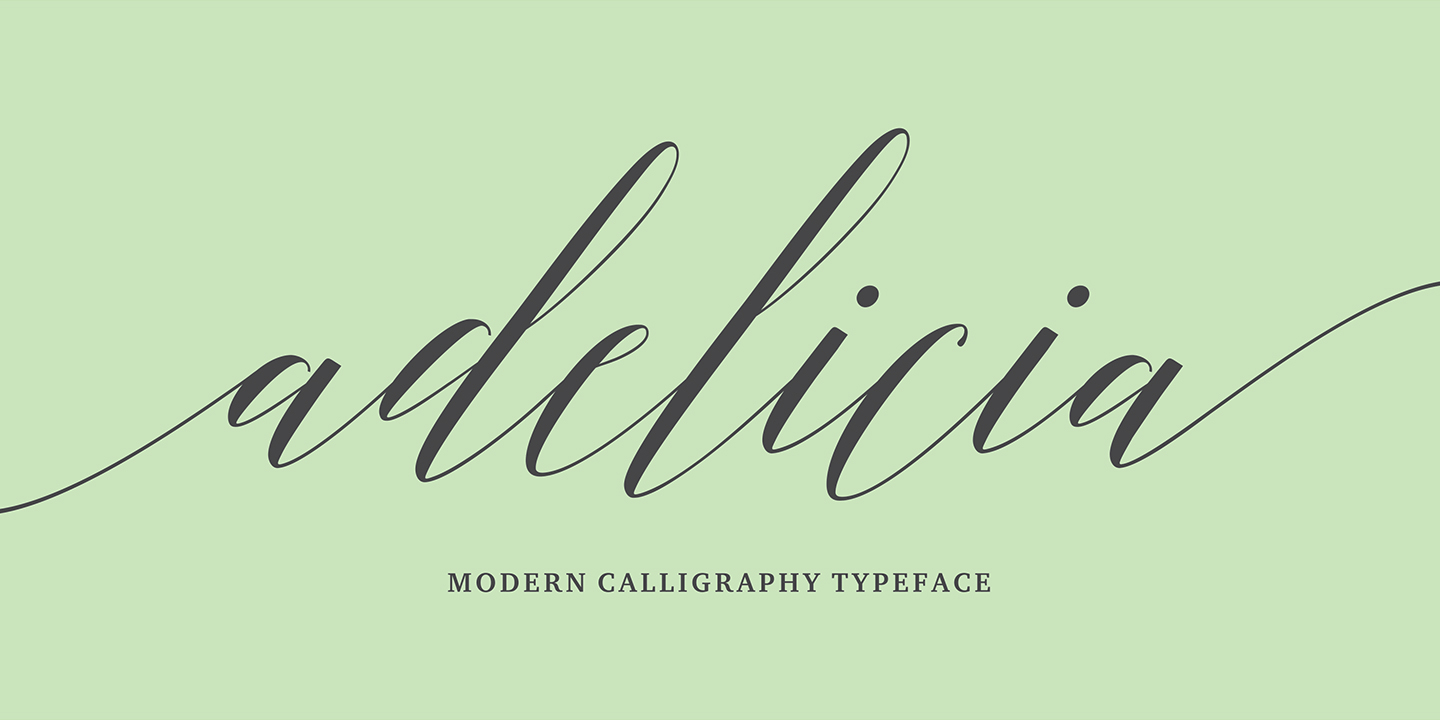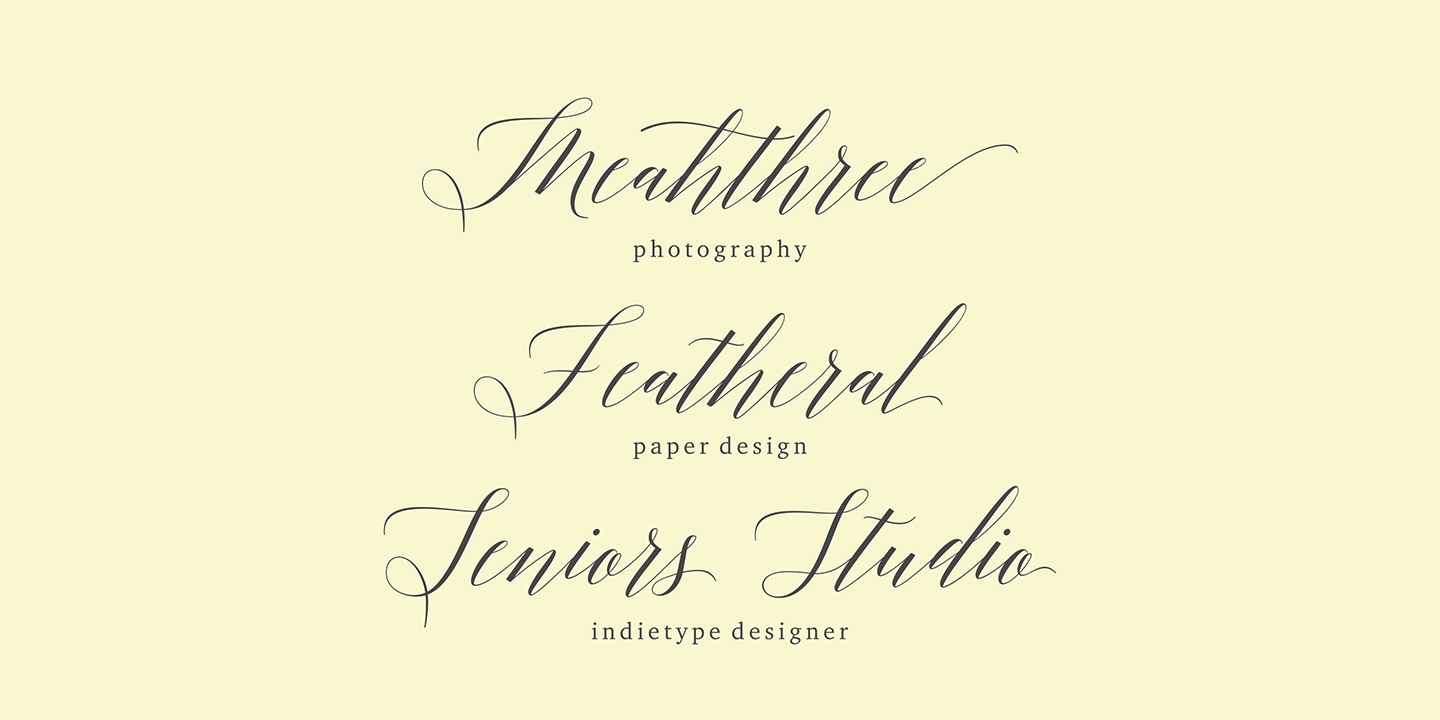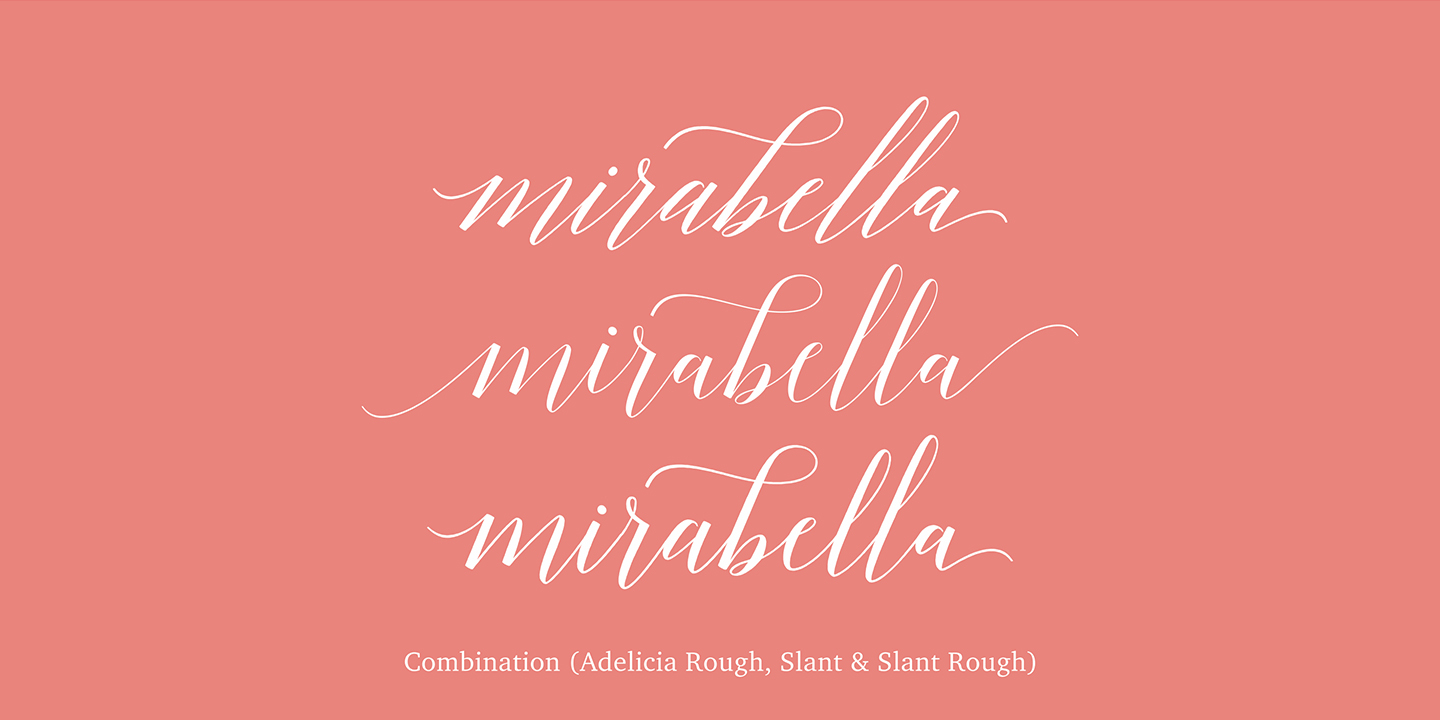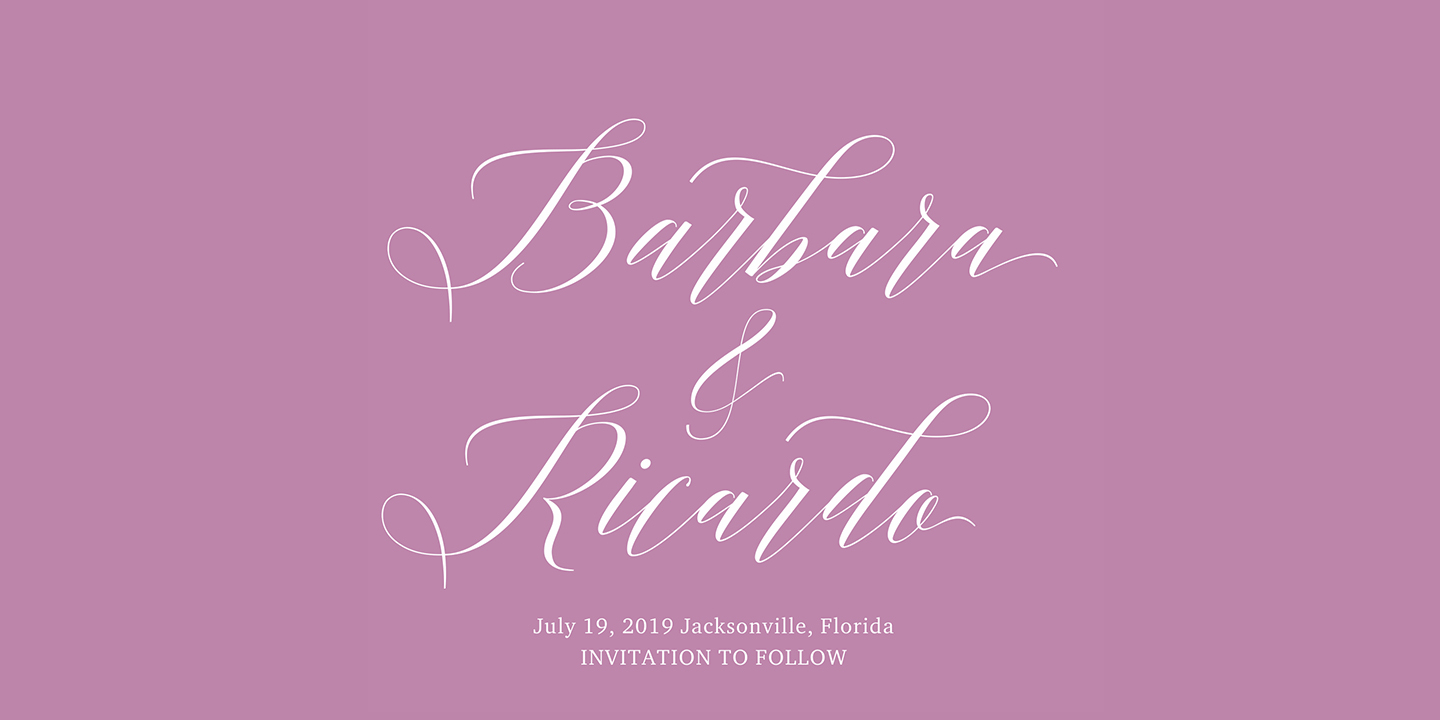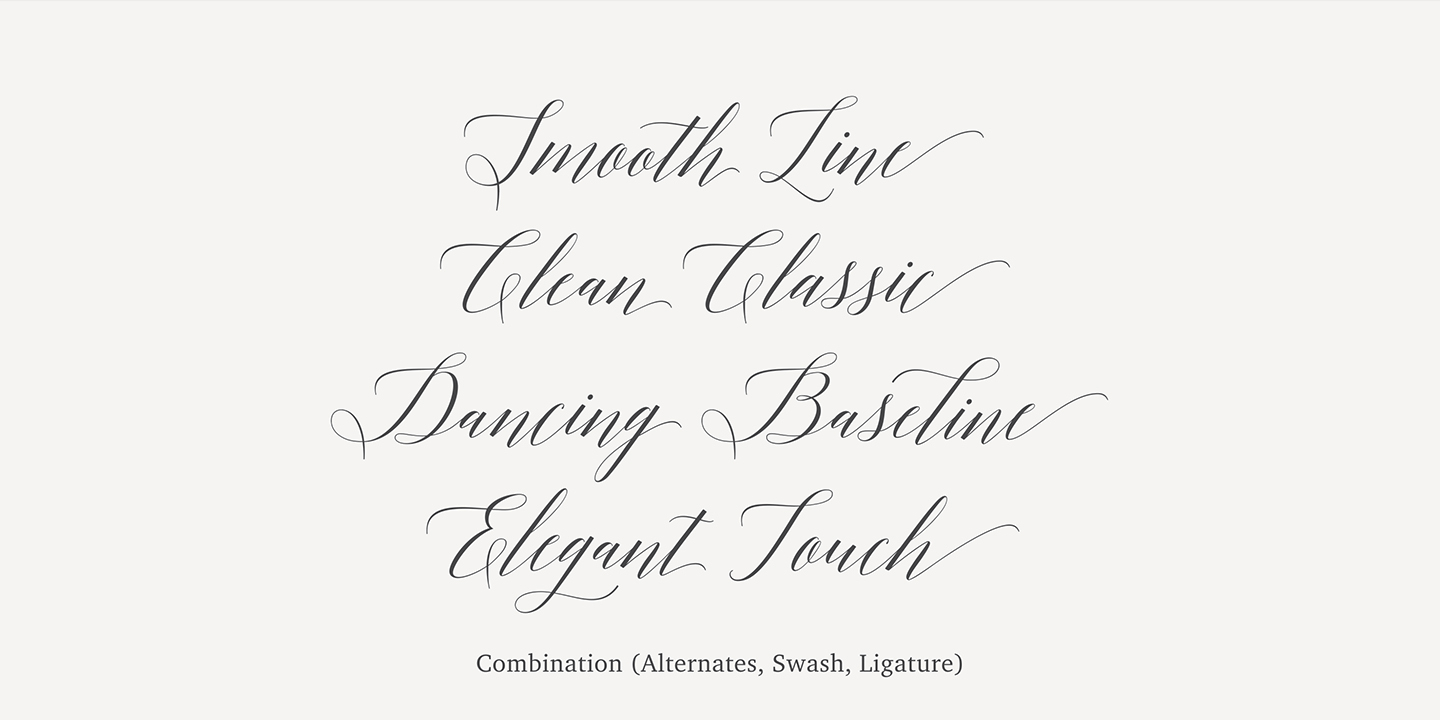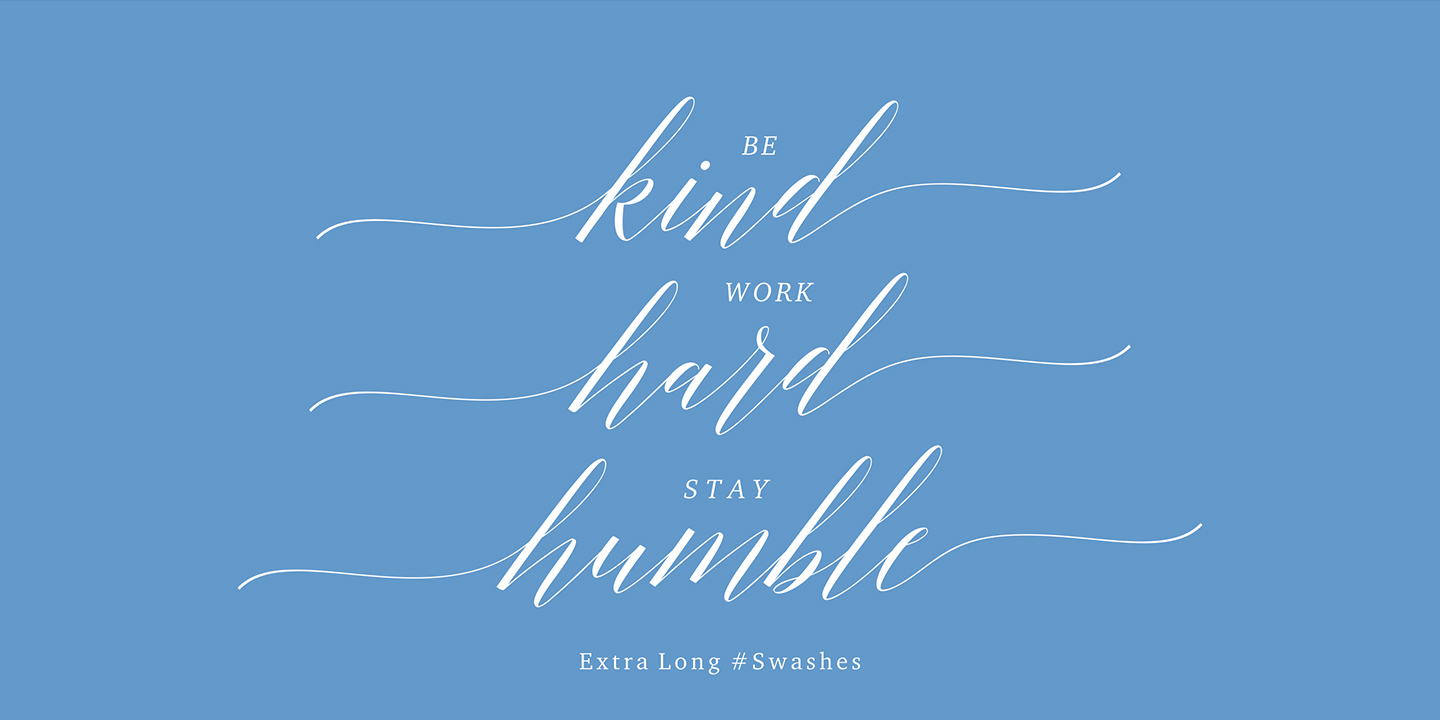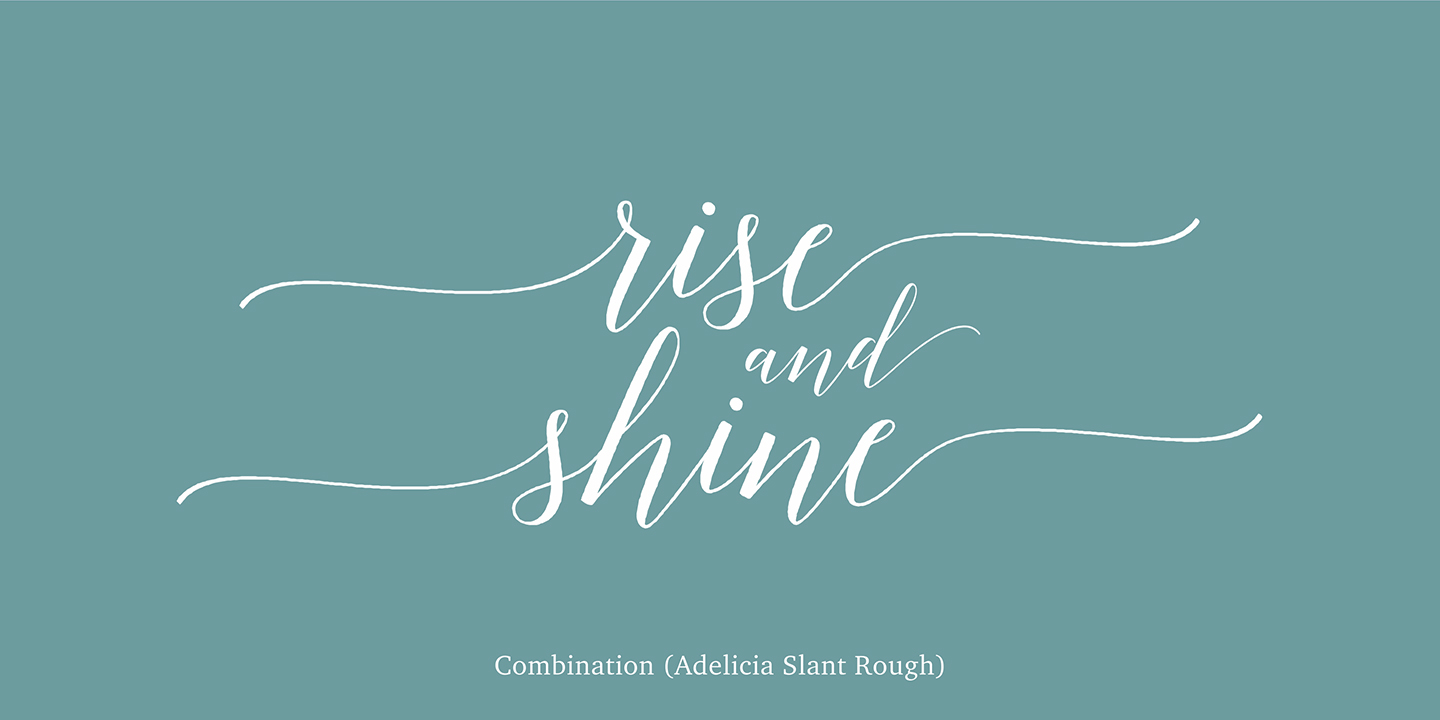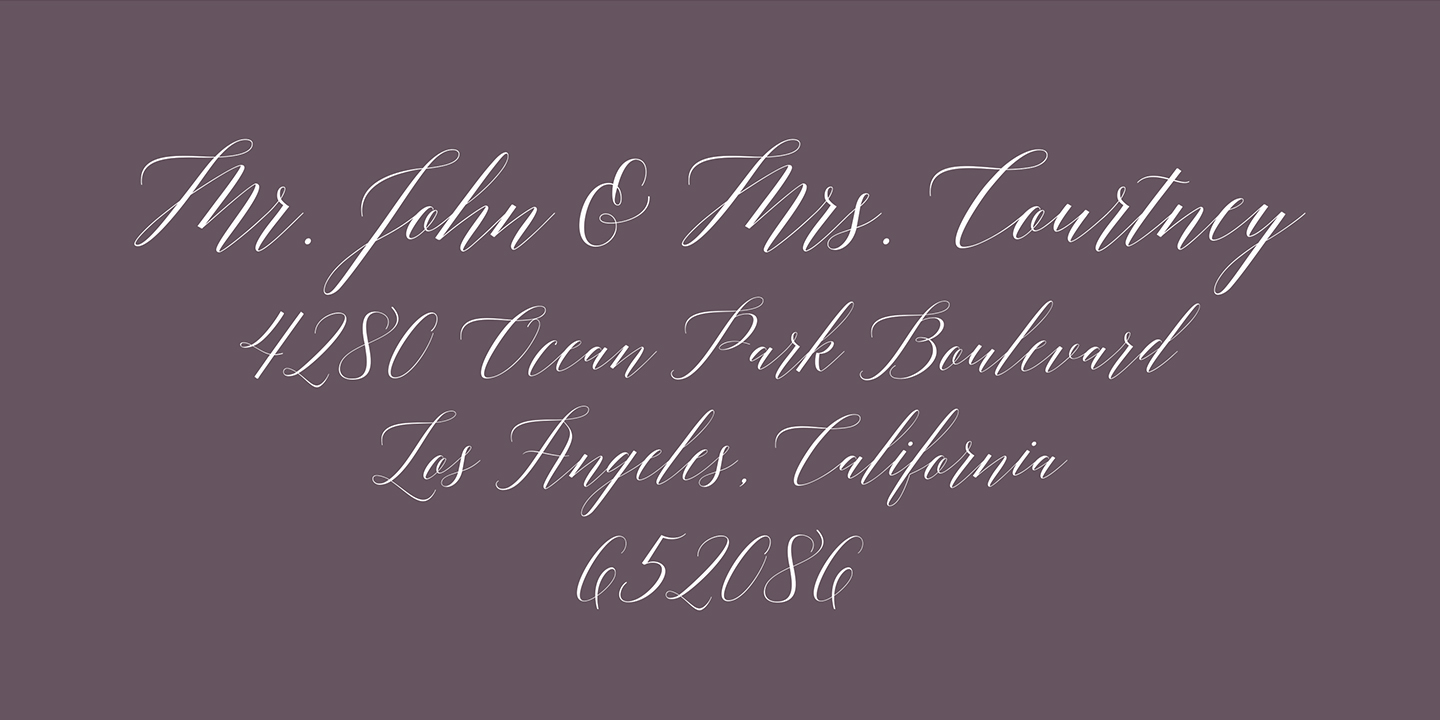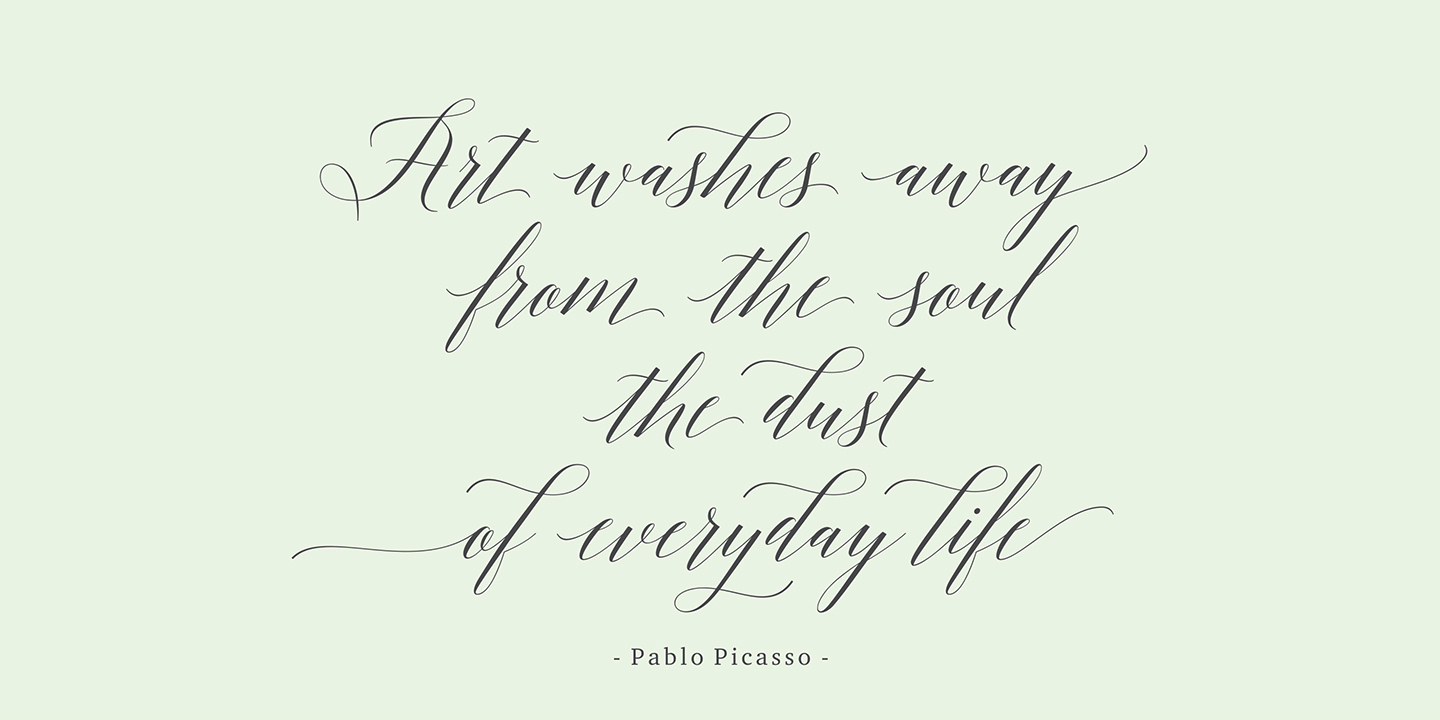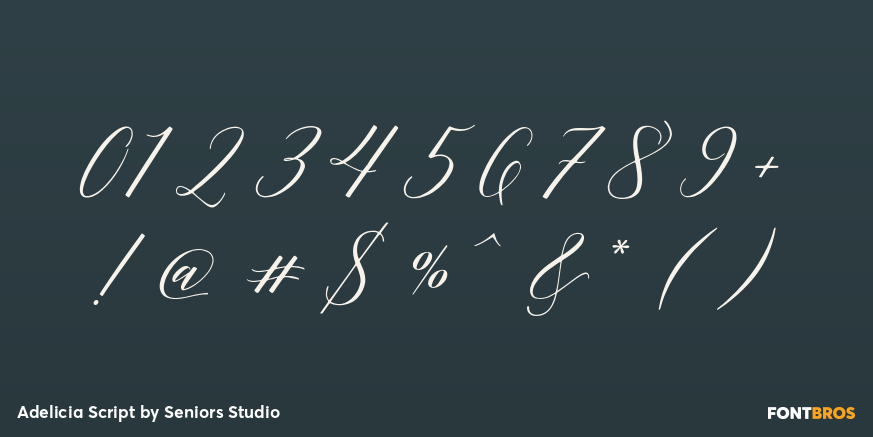
Adelicia Script
Font Family by Seniors Studio
Adelicia Script is a stylish calligraphy font that features a varying baseline, smooth line, classic and elegant touch. It can be used for various purposes, such as headings, signature, logos, wedding invitation, t-shirt, letterhead, signage, labels, news, posters, badges etc.
Adelicia Script features 565+ glyphs and 264 alternate characters, including initial and terminal letters, alternates, ligatures and multiple language support.